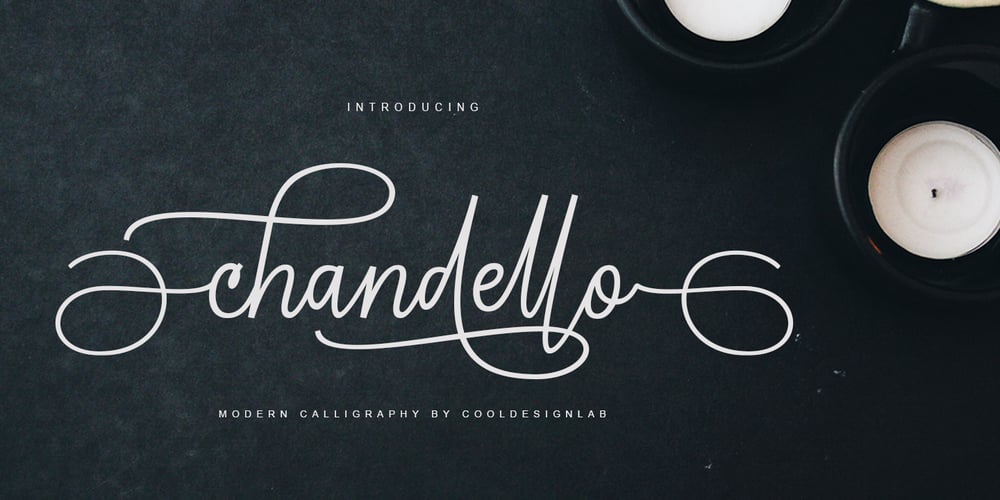
Chandello Font Family was designed by Kurniadi Saputra and published by Cooldesignlab. Chandello contains 1 styles and family package options. Chandello is a handwritten signature script with a natural & stylish flow, perfectly suited to signature, stationery, logo, typography quotes, magazine or book cover, website header, clothing, branding, packaging design and more. A handwritten script font containing upper and lowercase characters, numerals and a large range of punctuation.Chandello is a must-have signature script that has a diverse set of alternates that will surely be used many times over in various projects in the future. This collection fills a void and separates itself from other scripts available.